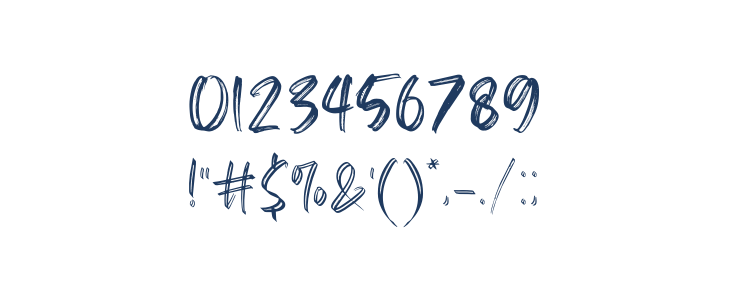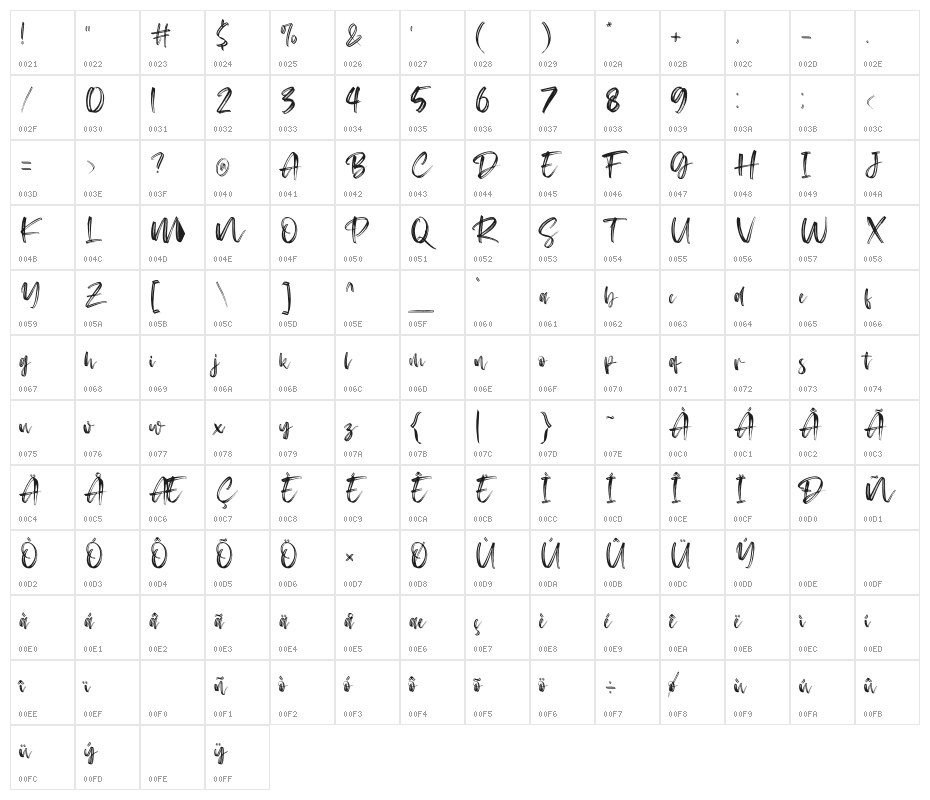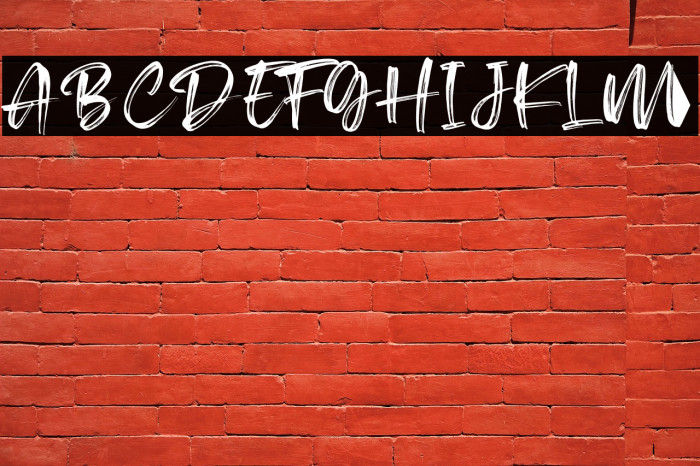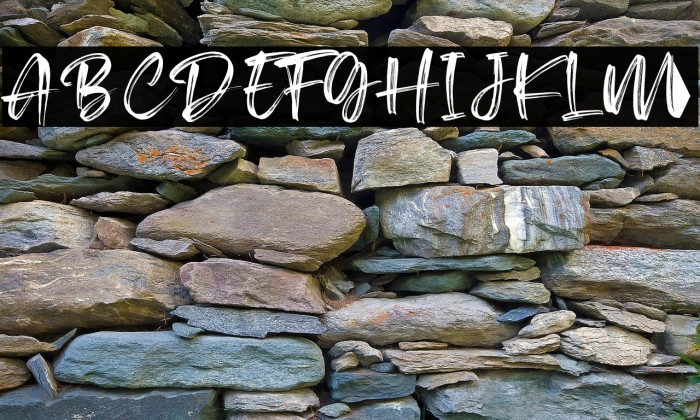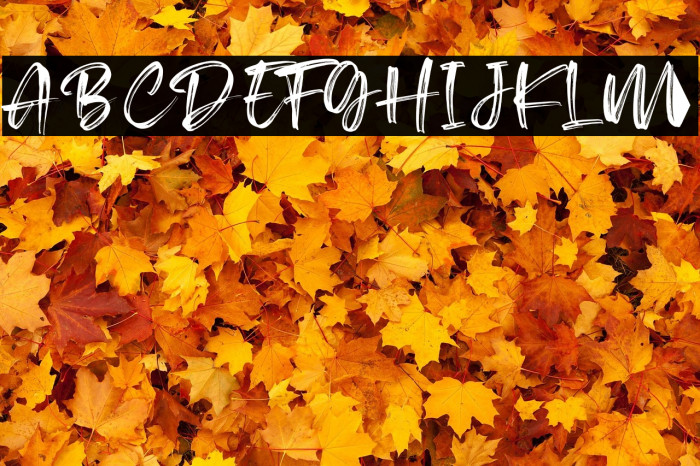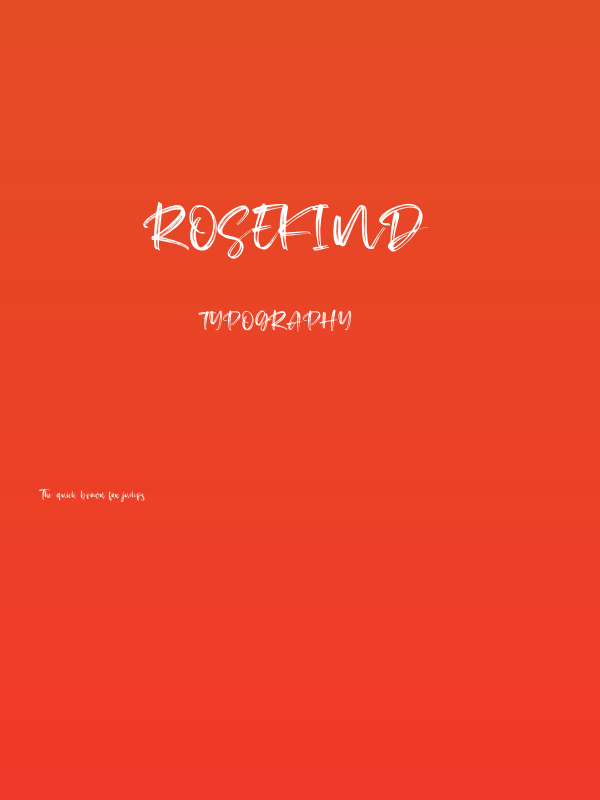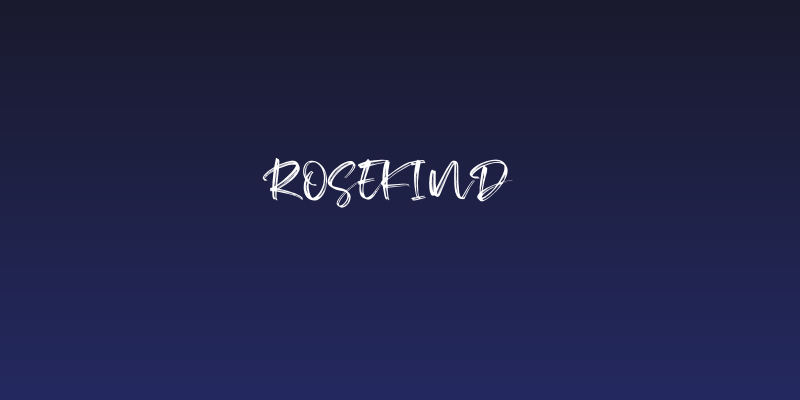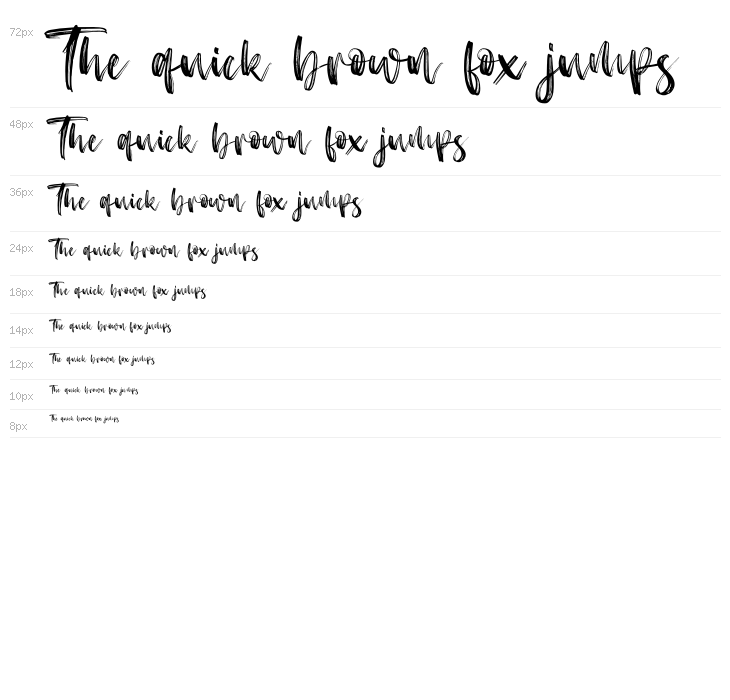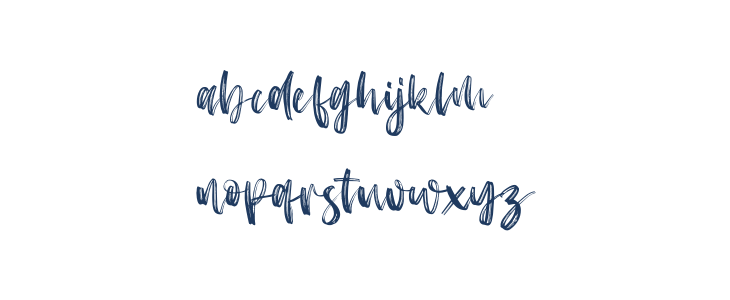
Rosekind Font
Rosekind Description
This font features a dynamic and expressive handwritten style, characterized by its bold and energetic strokes. The letters are crafted with a brush-like texture, giving them a lively and artistic appearance. The uppercase and lowercase letters maintain a consistent flow, while the numerals and special characters complement the overall aesthetic. The font's irregularities and variations in stroke width add a sense of movement and spontaneity, making it ideal for creative and informal designs.